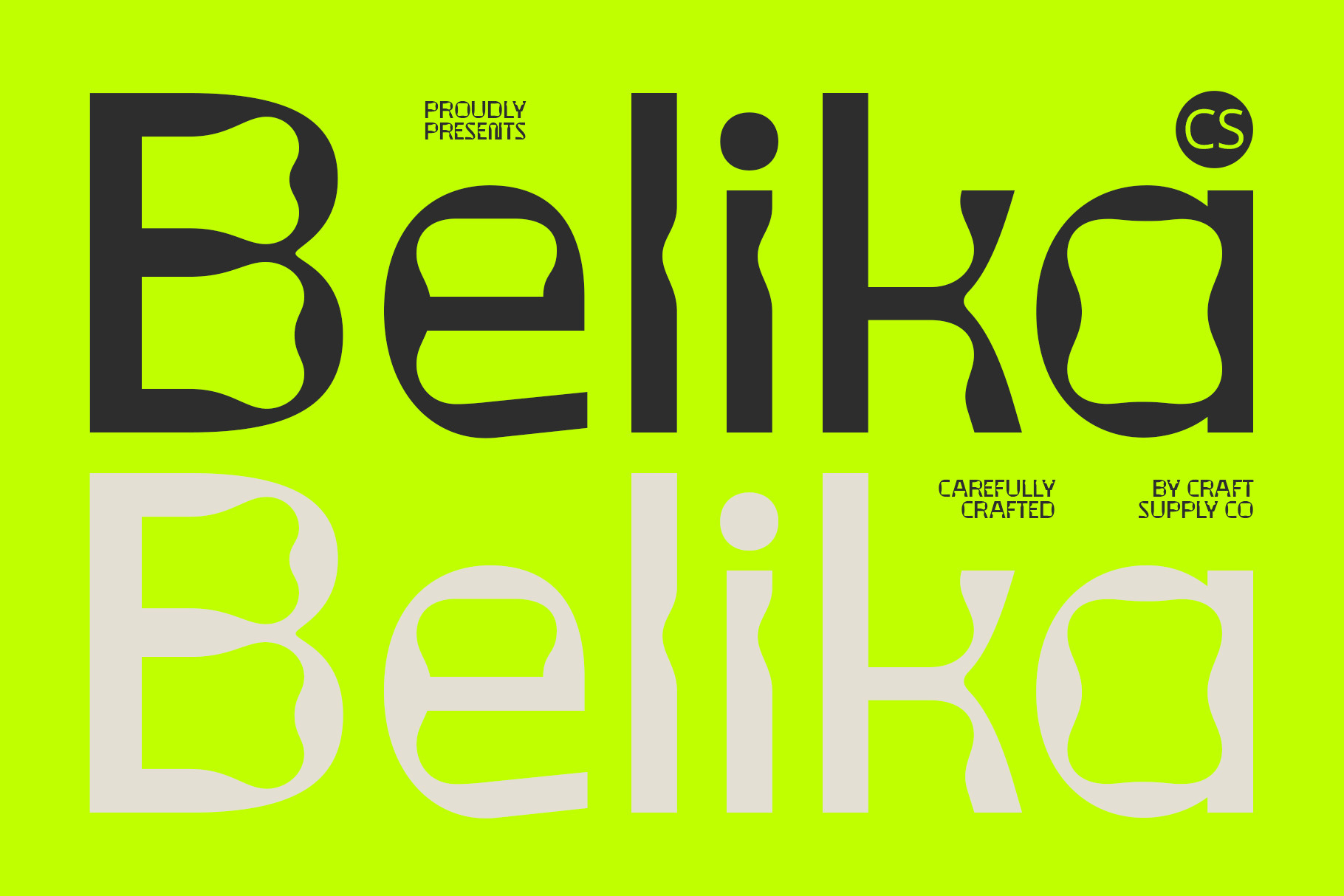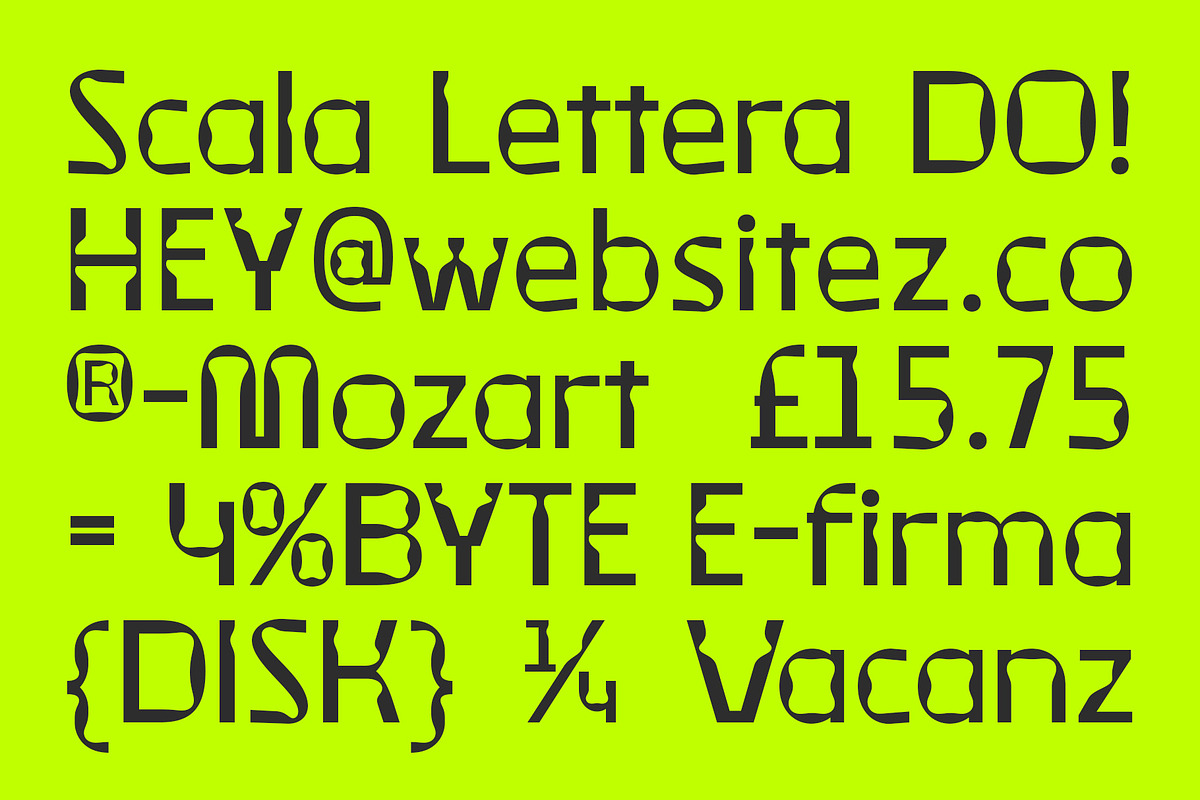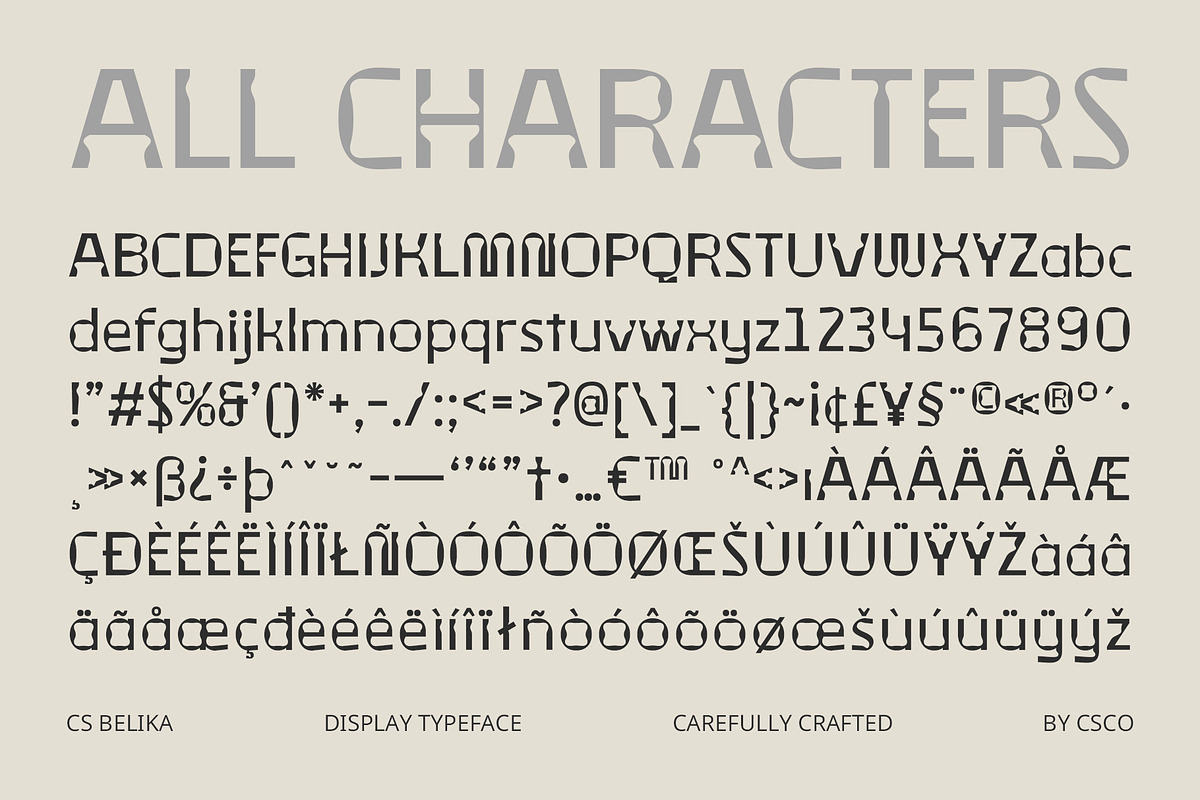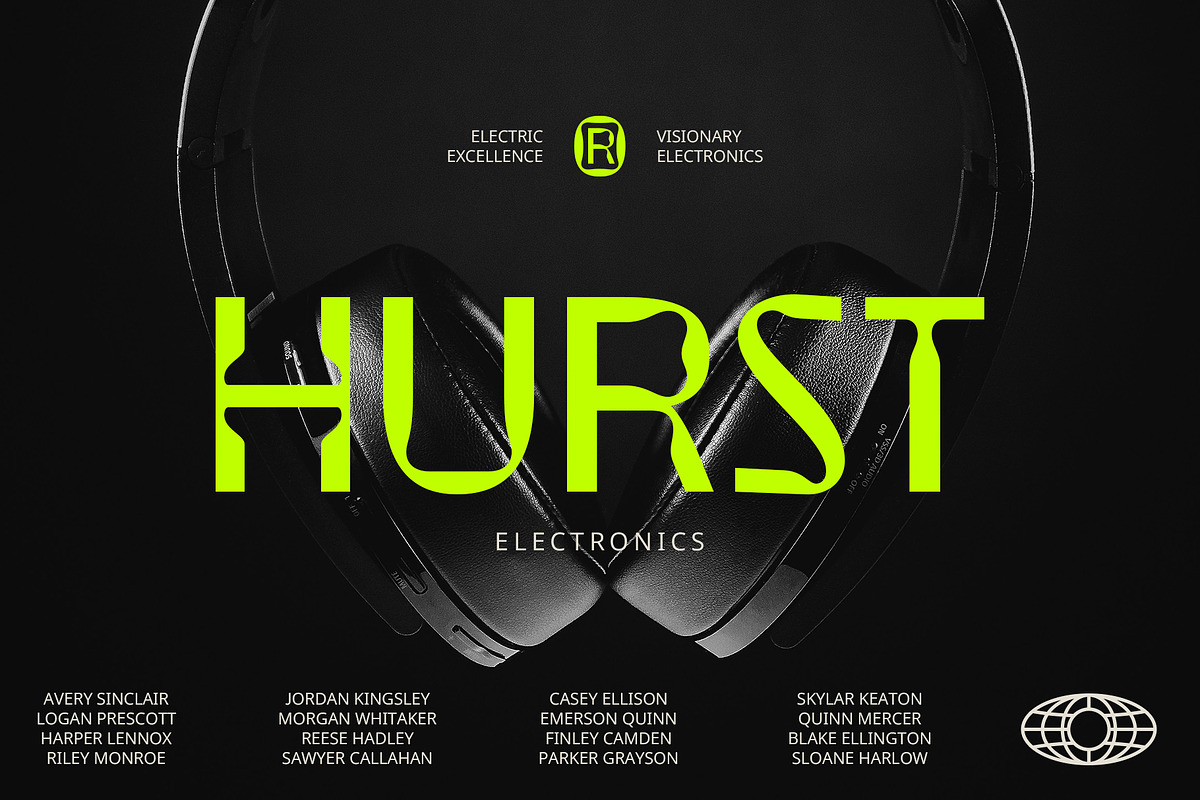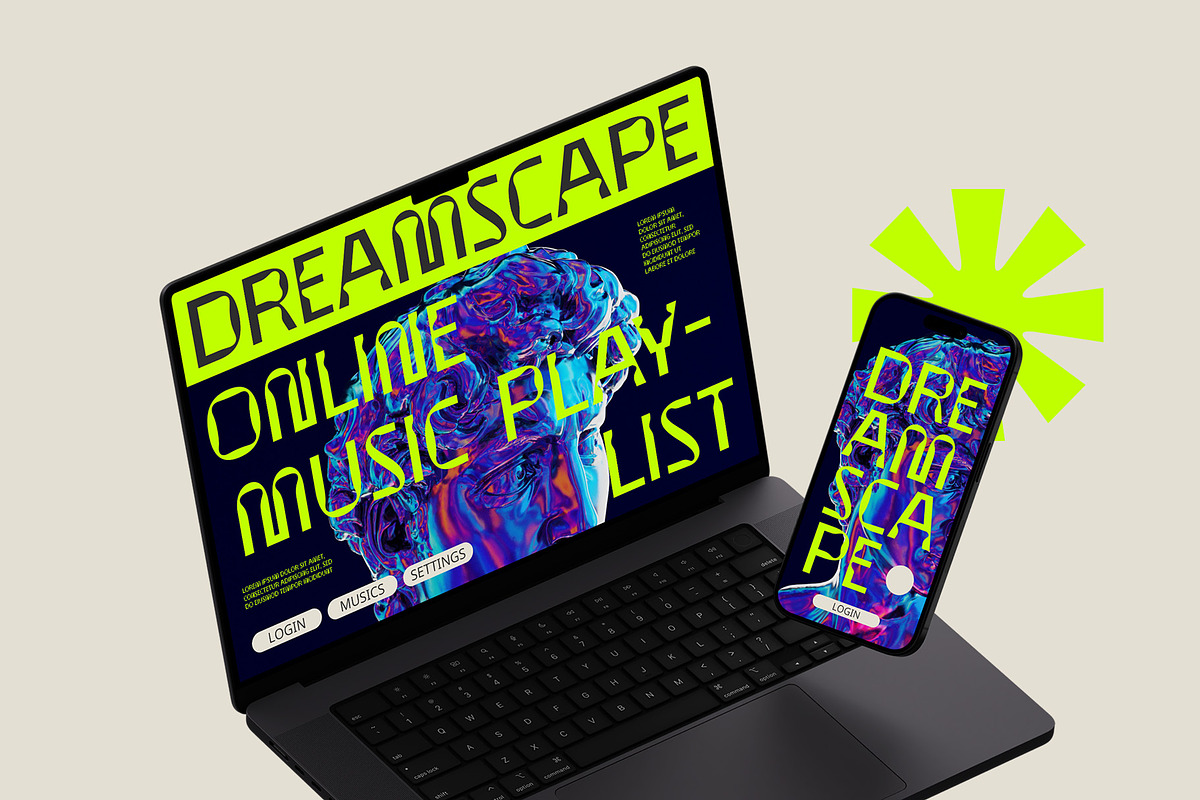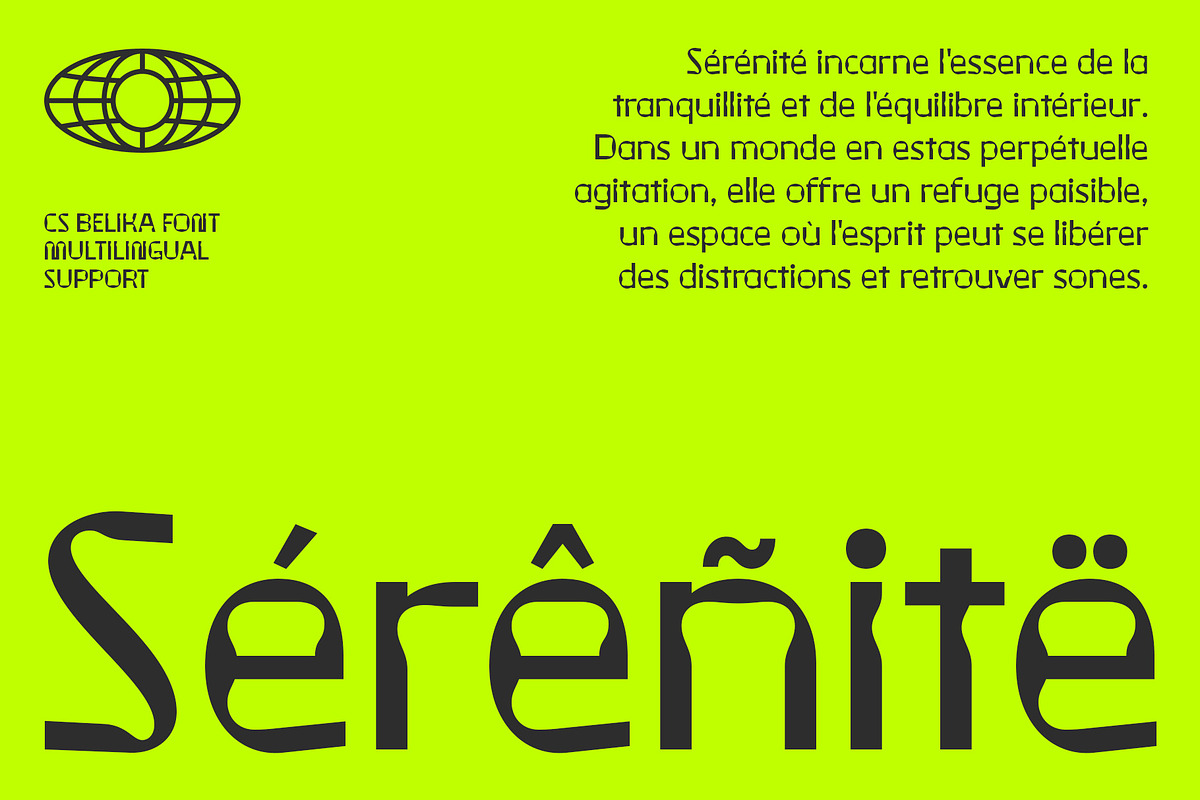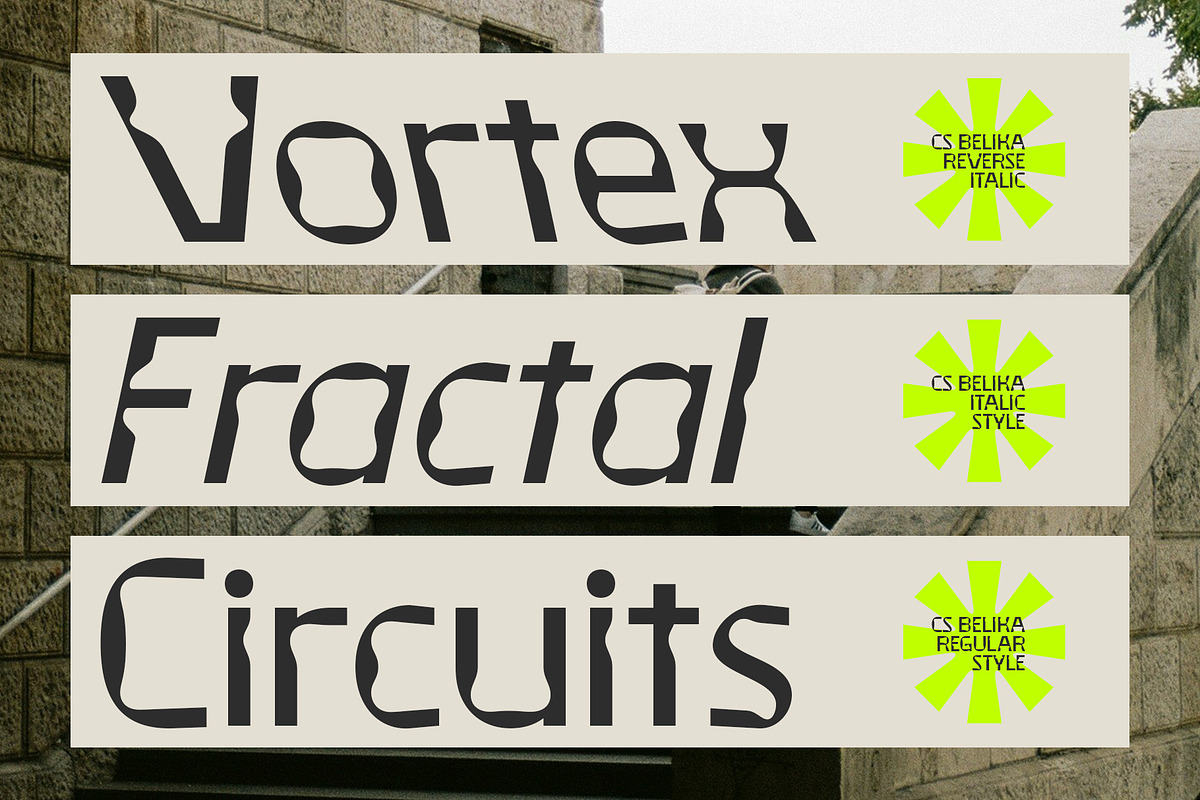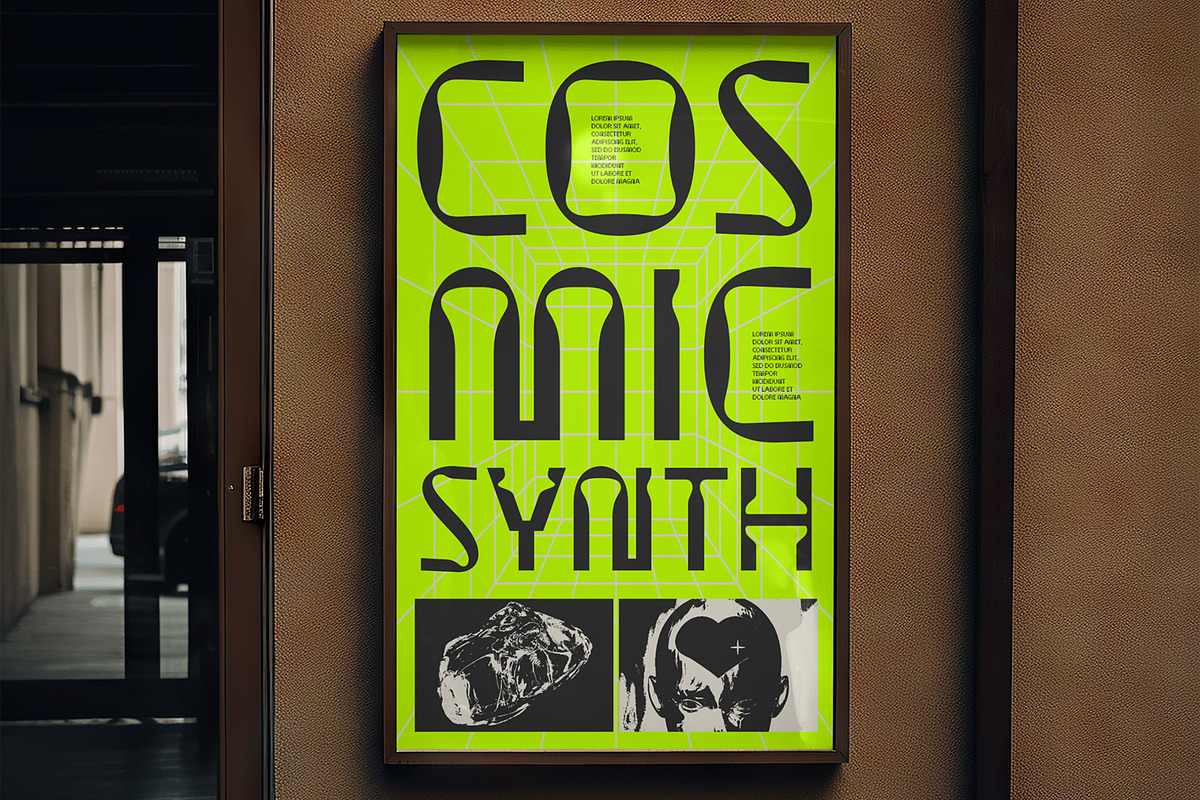
CS Belika – Techno Font
CS Belika: Futuristic Techno Font
Sharp, Geometric Design CS Belika is a modern display sans-serif font with a distinctive techno style, characterized by its sharp, futuristic design elements. The font features clean lines and geometric shapes, drawing inspiration from technological and digital aesthetics to deliver a cutting-edge look.
Techno-Inspired Aesthetics The techno-inspired design of CS Belika makes it an excellent choice for electronic and tech-themed projects. Its sleek and professional appearance is tailored to meet the demands of modern technological environments, adding a sophisticated edge to any design.
Perfect for Tech and Digital Projects Ideal for user interfaces, tech logos, and promotional materials, CS Belika provides a sleek and sophisticated look that enhances the visual appeal of techno-themed projects. Its clean and geometric forms ensure a professional and contemporary presentation in any application.
Versatile and Cutting-Edge Whether you’re designing for the tech industry or crafting digital content, CS Belika delivers a stylish and modern font option. Its blend of sharp lines and geometric precision makes it a versatile choice for a range of professional and tech-focused designs.
- CS Belika Regular
- CS Belika Italic
- CS Belika Reverse Italic